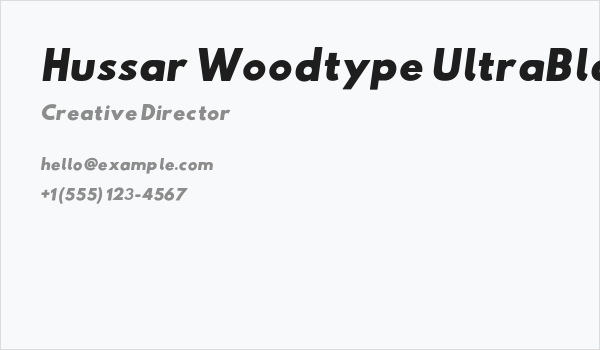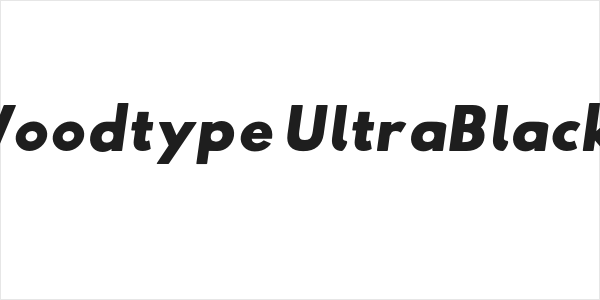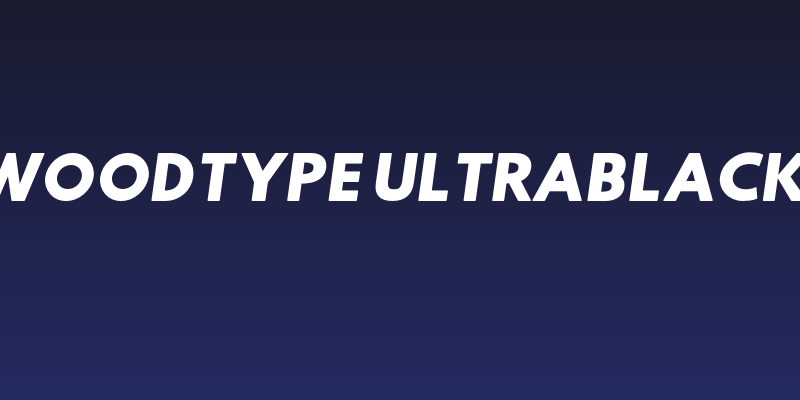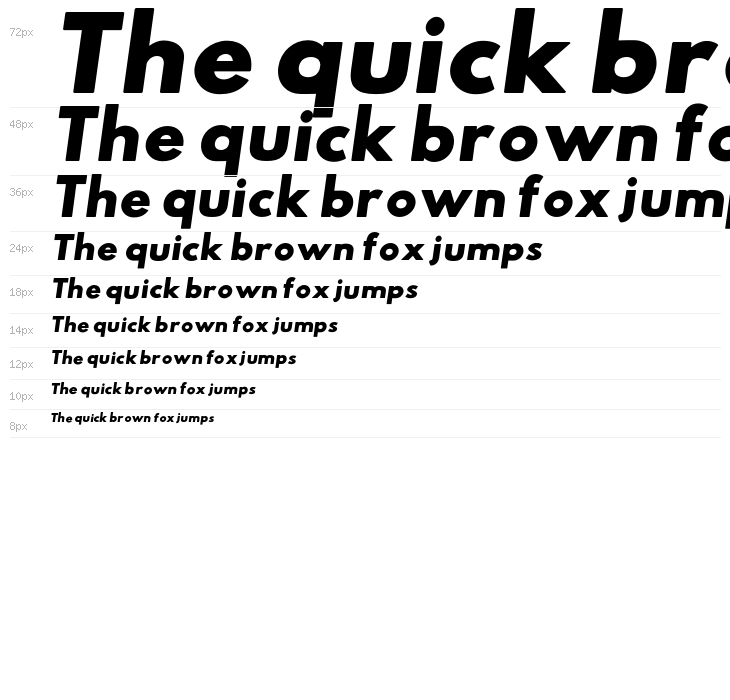
Hussar Woodtype UltraBlack Oblique Font
Hussar Woodtype UltraBlack Oblique Description
This font features a bold and dynamic style with a strong presence. The characters are heavily weighted, giving them a robust and impactful appearance. The oblique angle adds a sense of motion and energy, making it stand out in any design. The uppercase and lowercase letters maintain a consistent thickness, contributing to a cohesive look. The numerals are clear and bold, ensuring readability. Special characters are included, enhancing its versatility for various applications. The overall design is modern and assertive, suitable for attention-grabbing headlines and statements.
| Proposed Projects | Ideal for posters, branding, advertising, and any project requiring a bold statement. |